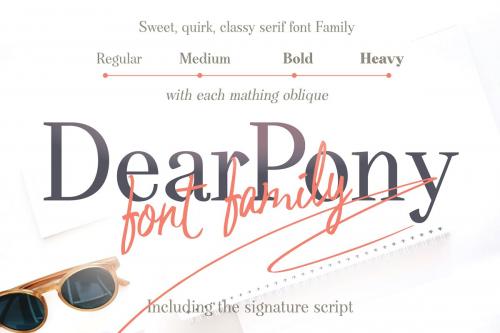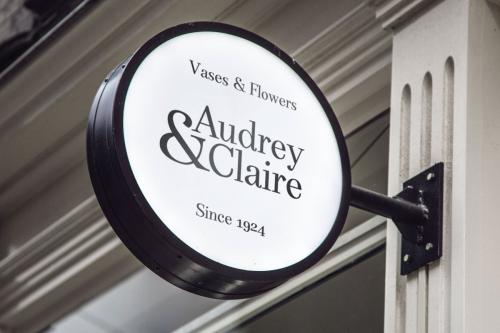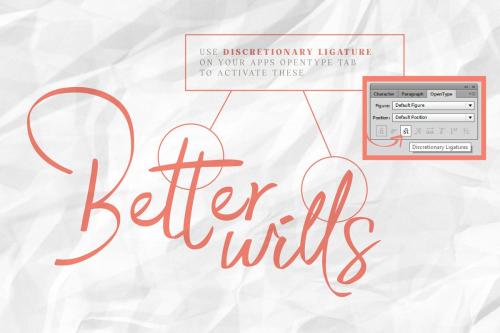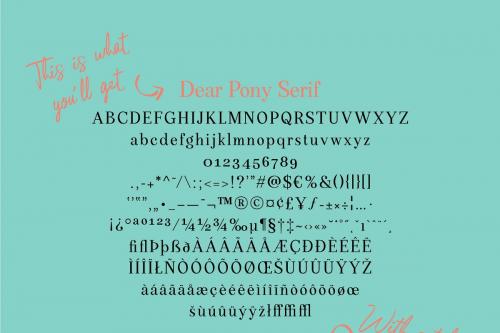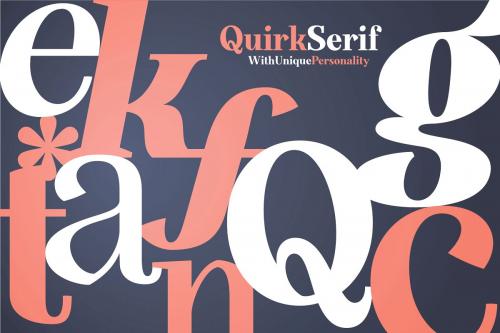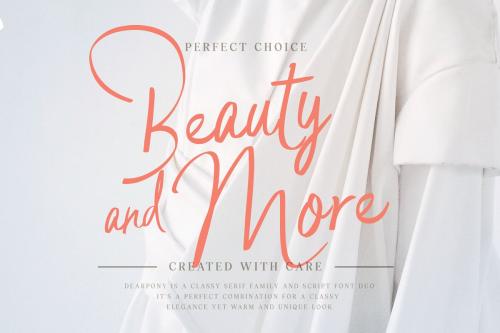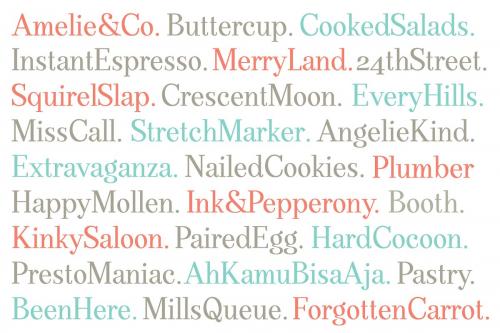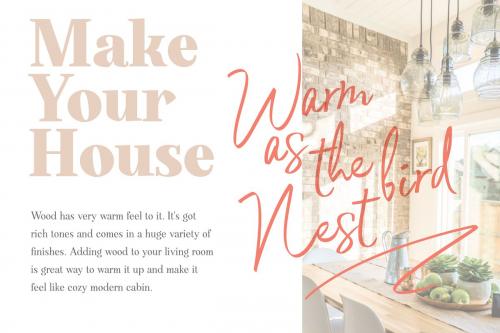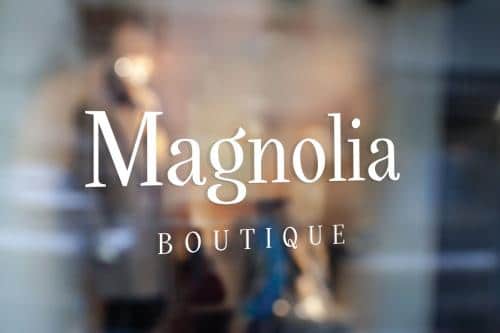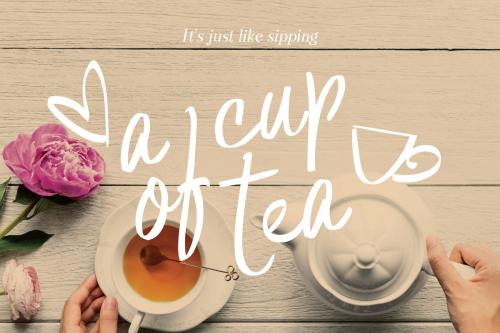
DearPony is a sweet, warm, quirky, yet classy serif and signature script font duo.
This charming combination offer a unique and elegant look that make it useful for various creative project. The serif’s contain 240 glyphs with eight weight; Regular, Medium, Bold and Oblique with each matching oblique.